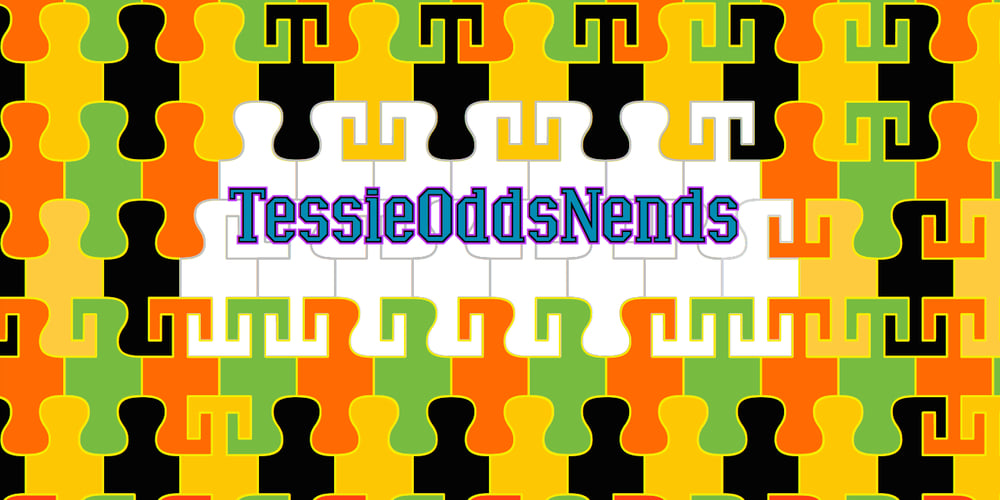
TessieOddsNends Font Family was designed by Robert Schenk and published by Ingrimayne Type. TessieOddsNends contains 2 styles and family package options. A tessellation is a shape that can be used to completely fill the plane—simple examples are isosceles triangles, squares, and hexagons. Tessellation patterns are eye-catching and visually appealing, which is the reason that they have long been popular in a variety of decorative situations. These Tessie fonts have two family members, a solid style that must have different colors when used and an outline style. They can be used separately or they can be used in layers with the outline style on top of the solid style. For rows to align properly, leading must be the same as point size. To see how patterns can be constructed, see the “Samples” file here. TessieOddsNEnds contains shapes that did not fit into the other Tessie fonts: TessieStandingBirds, TessieFlyingBirds, TessieMoreBirds, TessieXtraBirds, TessieSpinners, TessiePuzzlePieces, TessieAnimals, TessieBugs, TessieMiscellaneous, and TessieMoreStuff. (Earlier tessellation fonts from IngrimayneType, the TessieDingies fonts, lack a black or filled version so cannot do colored patterns. The addition of a solid style that must be colored makes these new fonts a bit more difficult to use but offers far greater possibilities in getting visually interesting results.)